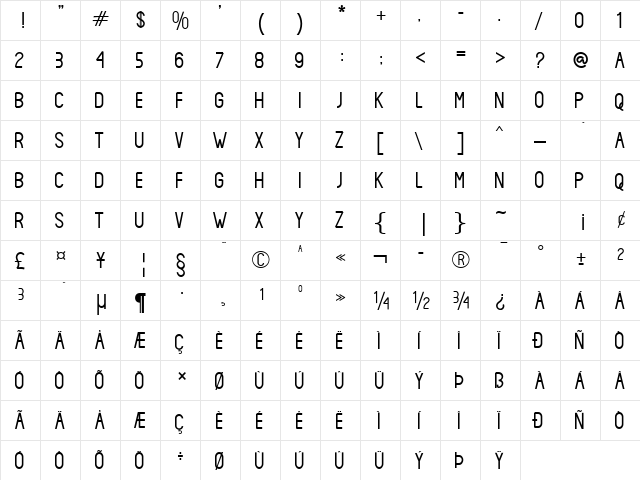
Zecko Sans Regular
| Designer | Kurnia Setyadi |
Design Context for Zecko Sans Typeface
Zecko Sans offers clean, dependable letterforms without strong stylistic allegiance, making it a practical choice for designers who need flexibility.